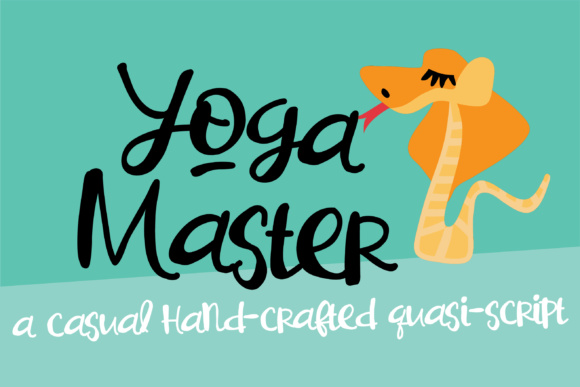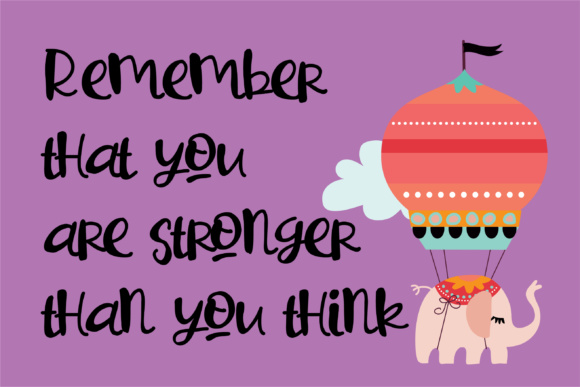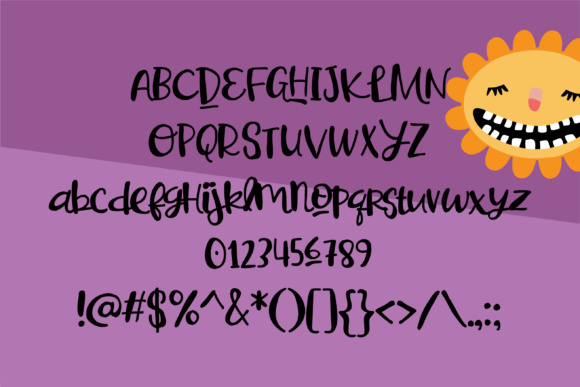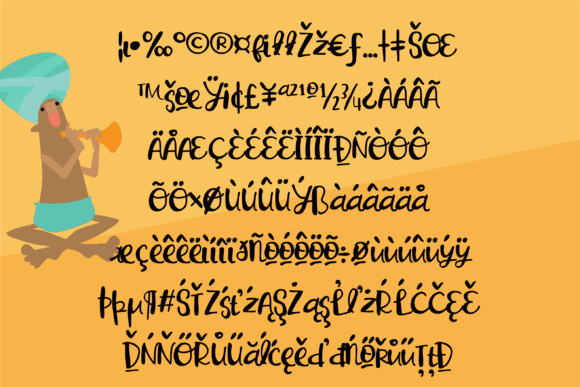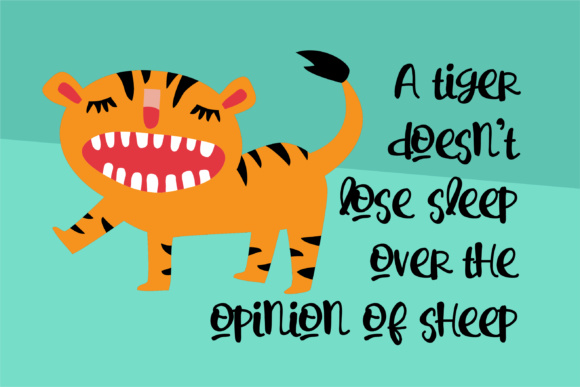
Yoga Master Font
About Yoga Master Font
This hand-crafted, casual font is what we like to call a quasi-script.. part script, part print. This fun font packs a few extra details to keep things interesting.